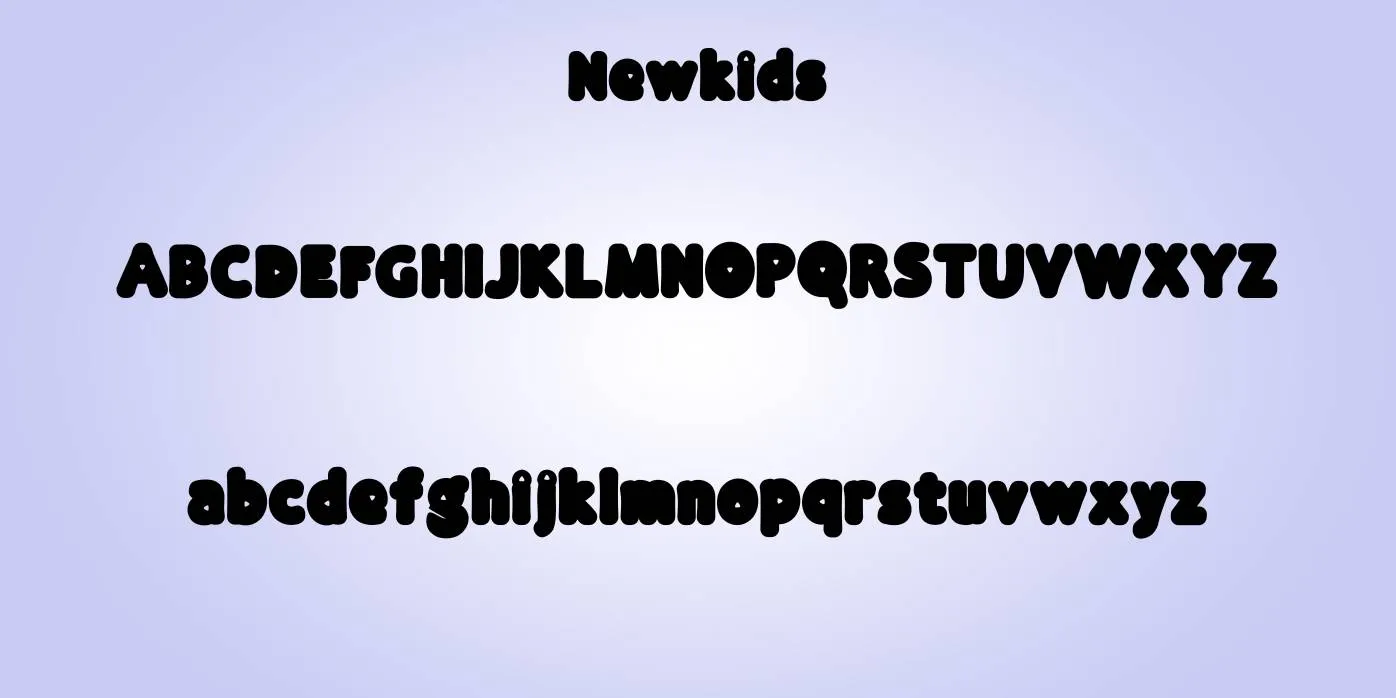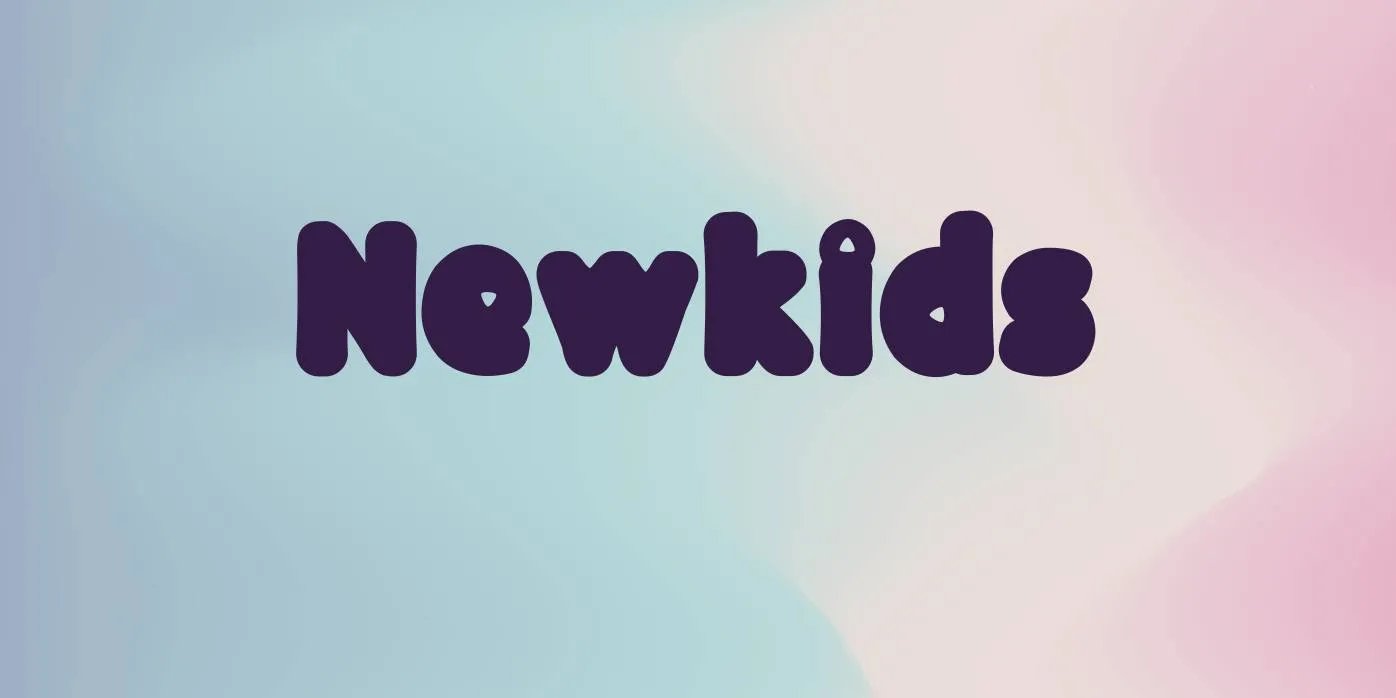
New Kids Font
New Kids Font is a very playful font and can be used to design many different projects. This amazing font was designed by Danny Amor. You can use it to design so many different projects. It contains 245 characters, 207 glyphs,s and 1000 units per Em.
languages supported by this font are Latin, Greek, and Symbols. This gorgeous typeface supports Latin -1 supplement, General punctuation, and mathematical operations as well. The weight of the font is normal and its width is medium (normal). An online generator tool also supports this font in which you can make or edit your new designs into a stylish look without downplaying the font.
Usage You can make so many different projects by using this font. It has characters, small letters, capital letters, punctuations, symbols, and special characters. You can make attractive banners, posters, and flyers. Branding and product packing can also be made with this font.
Labels and stickers for kids can also be made by using this font. Comic book covers, magazine covers and storybook covers can be made with this font. Movies titles and logos look very attractive with this font also. It is considered a very nice font for both print and digital media.